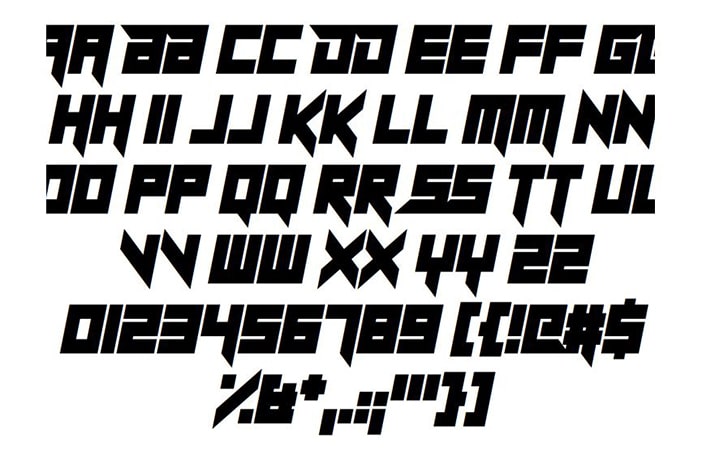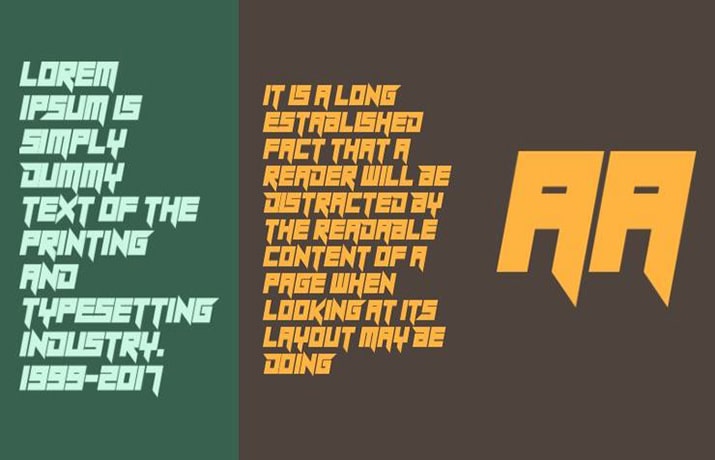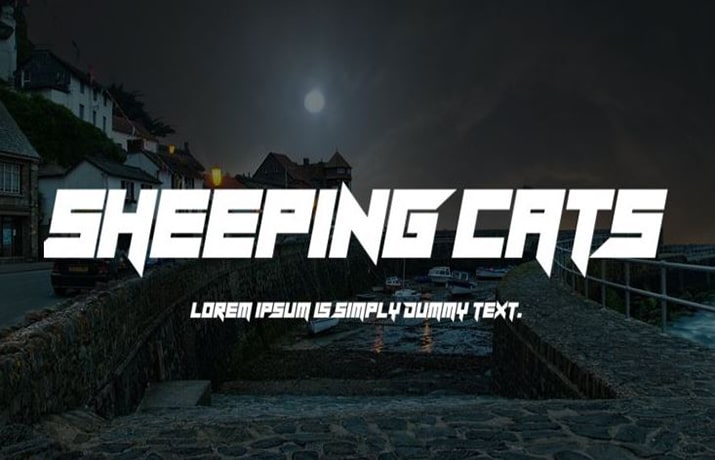
Sheeping Cats Font is a sharp techno typeface that is great for creating eye-catching headlines, posters, and much more. Its stylishly different letterforms can make any text stand out.
Chequered Ink is a game design studio in the southwest. That took the charge of developing and releasing it first.
Many designers like to use this typeface for their specific design workflows. With its versatile look and advanced texture, this font is one of the best fonts you’ve ever seen.
With this elegant font help, you can easily create covers, posters, titles, display headers, emblems, game titles, printing on cards, technical documents, flyers, gaming, headers, unique emblems, app development, brochures, web development as well as many other awesome places.
This font family has contained two different weights along with Open Type features. This font contains 98 beautifully designed characters.